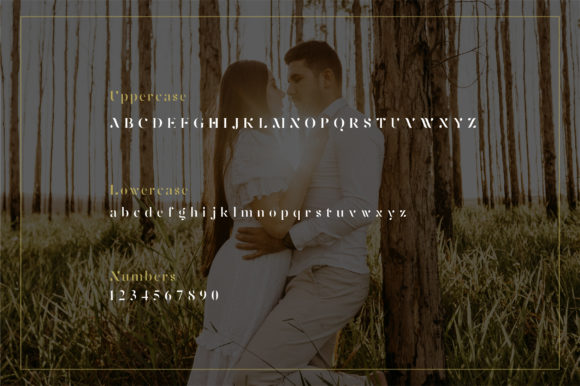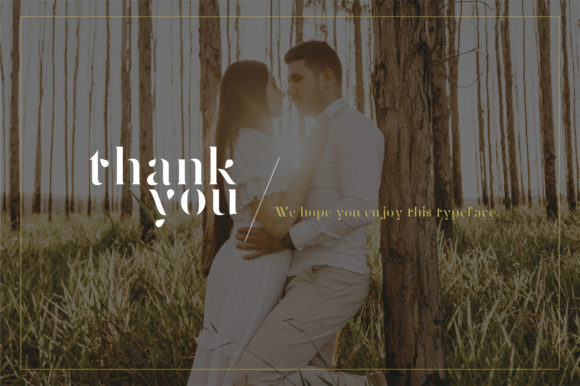
Introduction to Kagony Font
As a designer, you know that the right font can elevate your creative project from ordinary to extraordinary. I still remember the moment I stumbled upon the perfect font for a client’s branding campaign – it was like the stars aligned, and everything fell into place. The perfect font can make or break a design, and that’s why I’m excited to introduce you to the Kagony Font, a game-changing display font that’s about to revolutionize your design workflow.
With its sleek and elegant design, the Kagony Font is a design resource like no other. Its transparent background and high-quality design make it perfect for a wide range of creative projects, from logos to social media graphics. And the best part? You can download it for free, making it an invaluable addition to your design toolkit.
Whether you’re a seasoned designer or just starting out, the Kagony Font is a valuable asset that’s sure to take your creative ideas to the next level. So, let’s dive in and explore the world of this incredible font, and discover why it’s about to become your new favorite design companion.
Key Features of Kagony Font
- Unique characteristics: Unique letterforms and subtle flair make it perfect for adding a touch of elegance to your design
Honest Review: Kagony Font
As a designer, I’m always on the lookout for high-quality design resources to elevate my creative projects. Recently, I stumbled upon the Kagony Font, and I must say it’s a great addition to any design toolkit.
- High-quality glyphs: The Kagony Font boasts beautiful, well-designed glyphs that are perfect for creating visually appealing text.
- Transparent background: The font’s transparent background makes it easy to overlay on images or other design elements.
While the Kagony Font is a great resource, there are a few limitations to consider:
- Limited font sizes: The font may not be suitable for very large or very small font sizes.
- Lack of bold and italic styles: The font only comes in regular style, which may limit its versatility.
Overall, the Kagony Font is a great addition to any design toolkit. Its high-quality glyphs and transparent background make it perfect for creative projects. While it has some limitations, it’s still a valuable resource for designers. I would definitely recommend it for anyone looking for a free, high-quality font.
Tips for Getting the Most Out of Kagony Font
Use the high-quality Kagony Font on a transparent background to create a stunning design. This font is a valuable design resource for any creative project. To get the most out of it, experiment with different font sizes, colors, and transparency levels.
Kagony Font is perfect for use in logos, brochures, business cards, and other marketing materials. Its unique design and high quality make it an excellent choice for any creative project. You can download the font for free and use it in your next design project.
Comparison to Kagony Font: Noto Sans is more minimalist and simple compared to Kagony Font, which has a more decorative and ornate design.